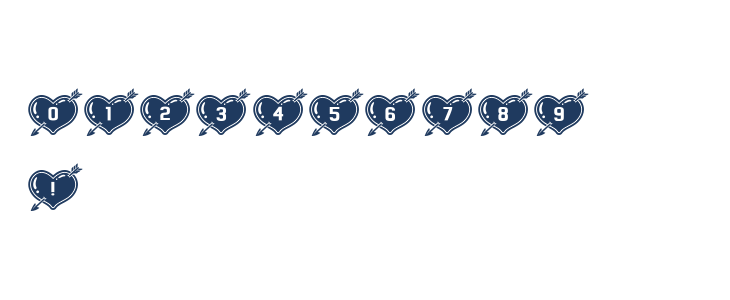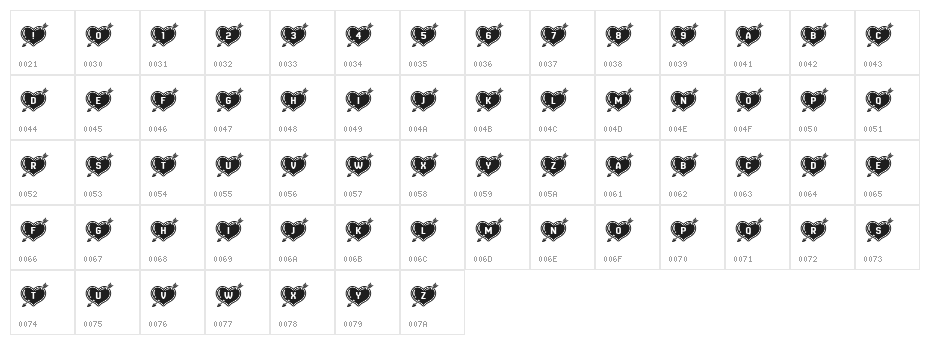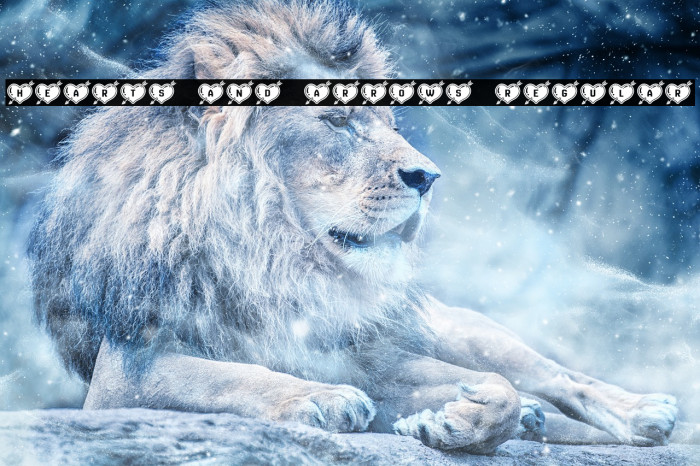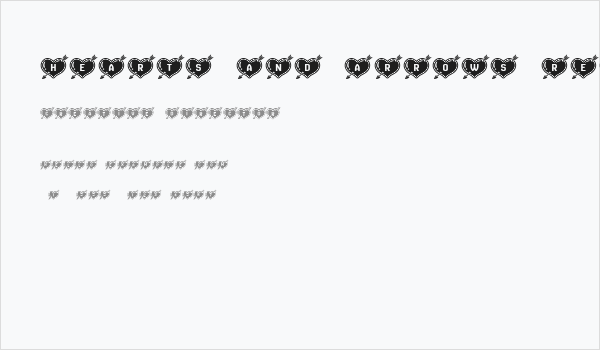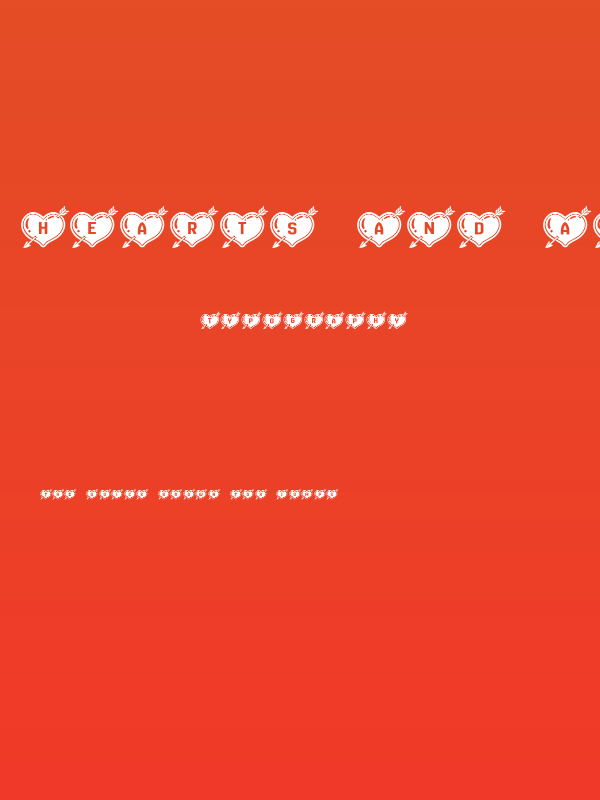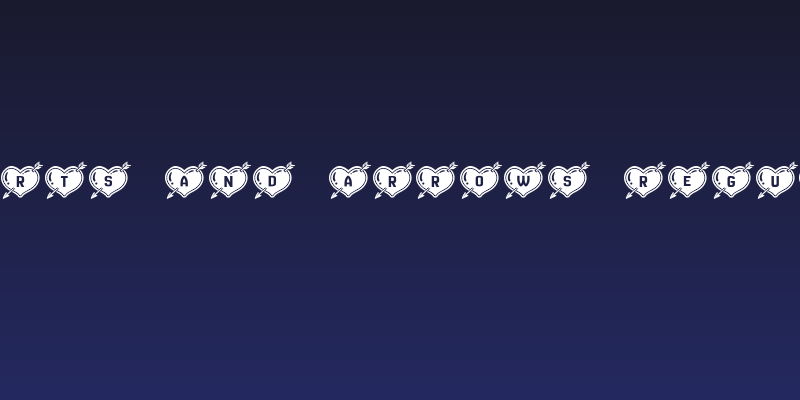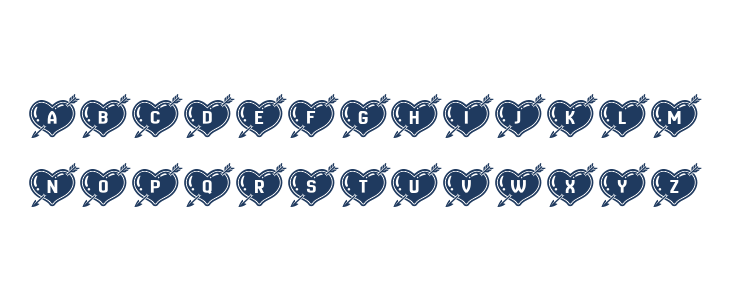
Hearts and Arrows Regular Font
Hearts and Arrows Regular Description
This playful and decorative font features each character enclosed within a heart shape, pierced by an arrow, creating a whimsical and romantic theme. The bold outlines and filled heart design make it stand out, while the consistent use of the heart motif across all characters, including letters, numbers, and special symbols, adds a cohesive visual appeal. The font's unique style is perfect for projects that require a touch of love and creativity, such as Valentine's Day cards, wedding invitations, or romantic-themed posters. Its decorative nature makes it more suitable for headlines or short text rather than body copy.
| Proposed Projects | Ideal for Valentine's Day cards, wedding invitations, romantic posters, and playful branding. |